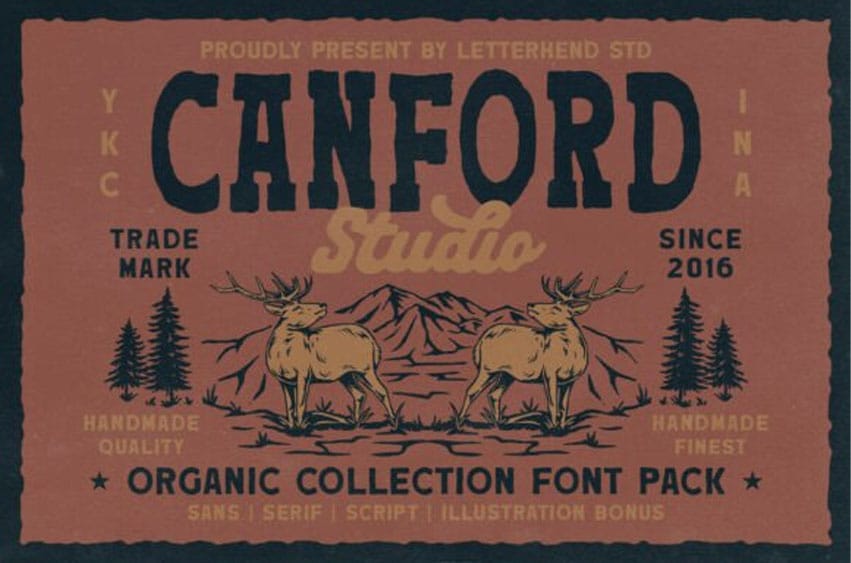
Canford Trio Font Typeface, an expansive Organic Collection Font Pack designed for the modern outdoors enthusiast and vintage branding connoisseur.
This unique collection is proudly presented by Letterhend Std and delivers Handmade Quality and Finest aesthetics perfect for capturing a rugged, authentic feel.
The package includes an array of styles—Sans, Serif, and Script—giving you the versatility to create robust, cohesive designs. With a design language inspired by nature, wildlife, and rustic signage, CANFORD is ideal for trademarked goods, apparel, brewery labels, coffee packaging, and all projects seeking a genuine, handcrafted look with a powerful, organic presence.